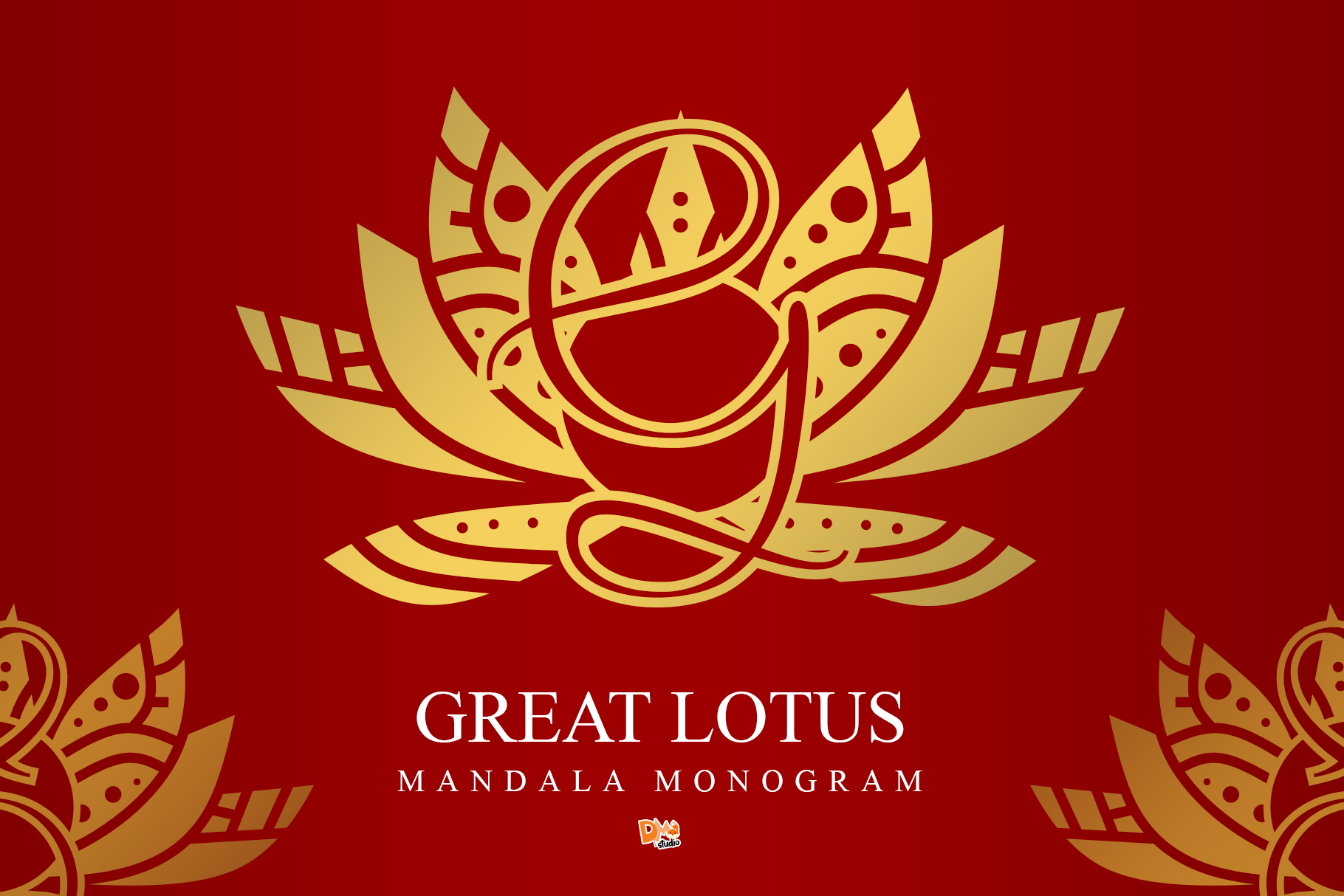
Great Lotus Mandala Monogram
Great Lotus Mandala Monogram – Majestic & Ornamental Mandala Monogram Font
Great Lotus Mandala Monogram is a beautifully crafted typeface that features bold, majestic lotus motifs merged with intricate mandala patterns. This ornamental monogram font evokes a sense of spiritual grandeur and timeless elegance, perfect for premium branding, meditation journals, artistic invitations, and high-end packaging designs.
• Majestic Lotus Mandala Design: Every letter is enhanced with detailed, symmetrical mandala elements inspired by the symbolic lotus flower.
• Ideal for Luxury & Spiritual Branding: Perfect for holistic businesses, yoga studios, high-end logos, and elegant event stationery.
• Bold Yet Graceful Aesthetic: Balances bold lines with ornamental intricacy for maximum visual impact.
• Complete Character Set: Supports uppercase, lowercase, numbers, punctuation, and multilingual characters.